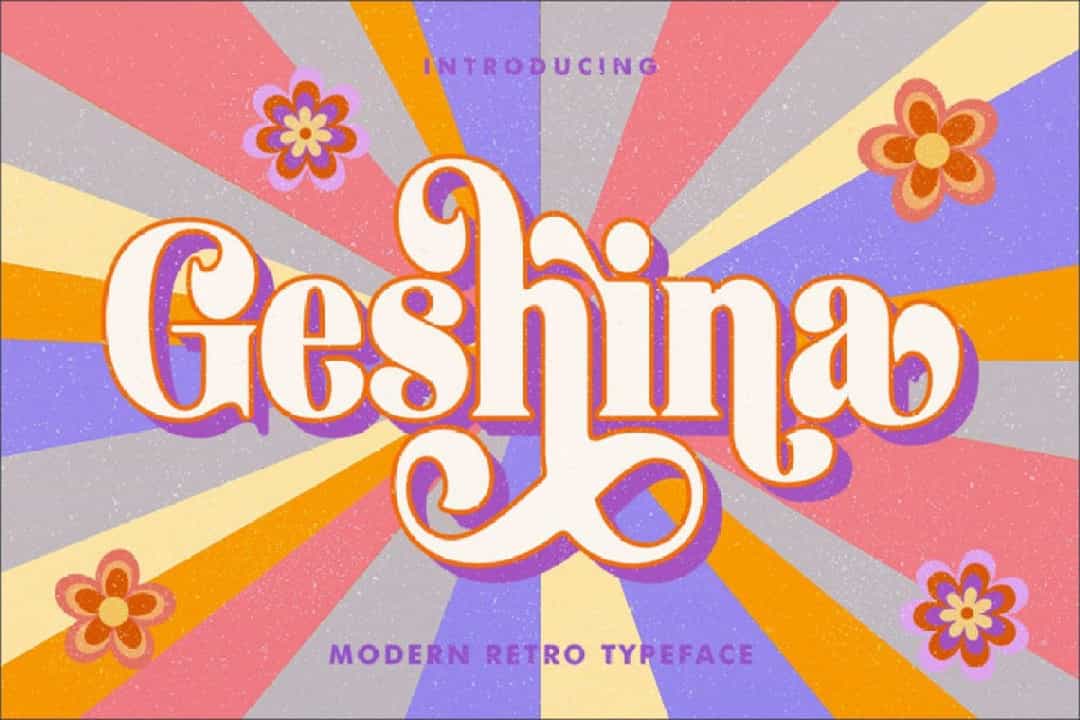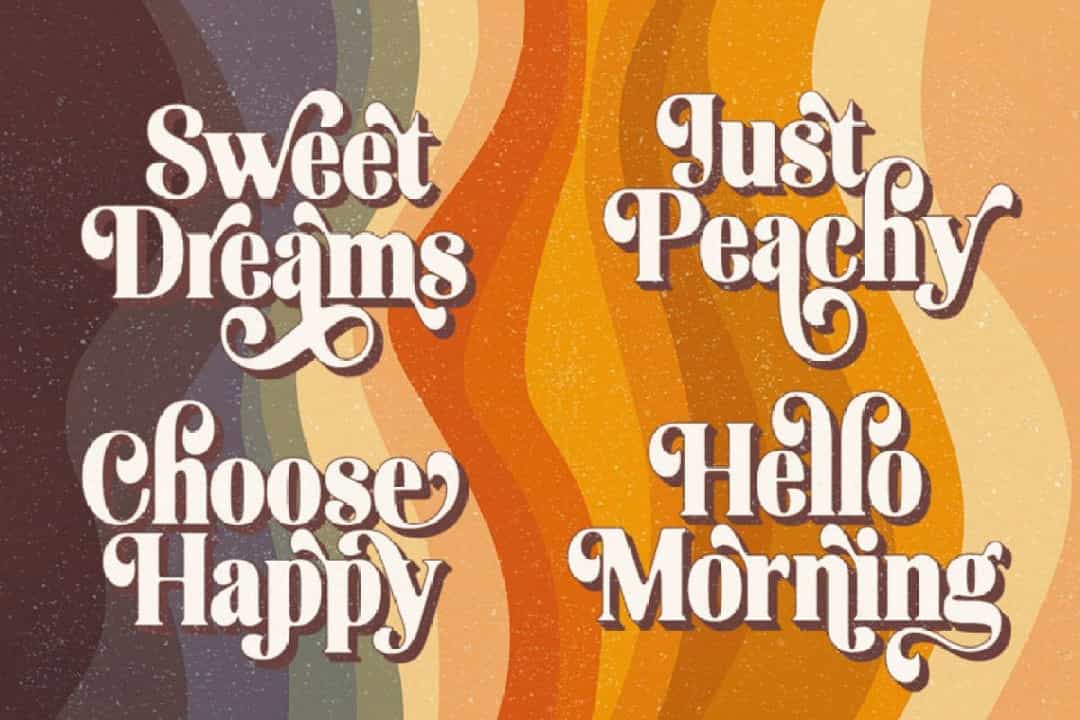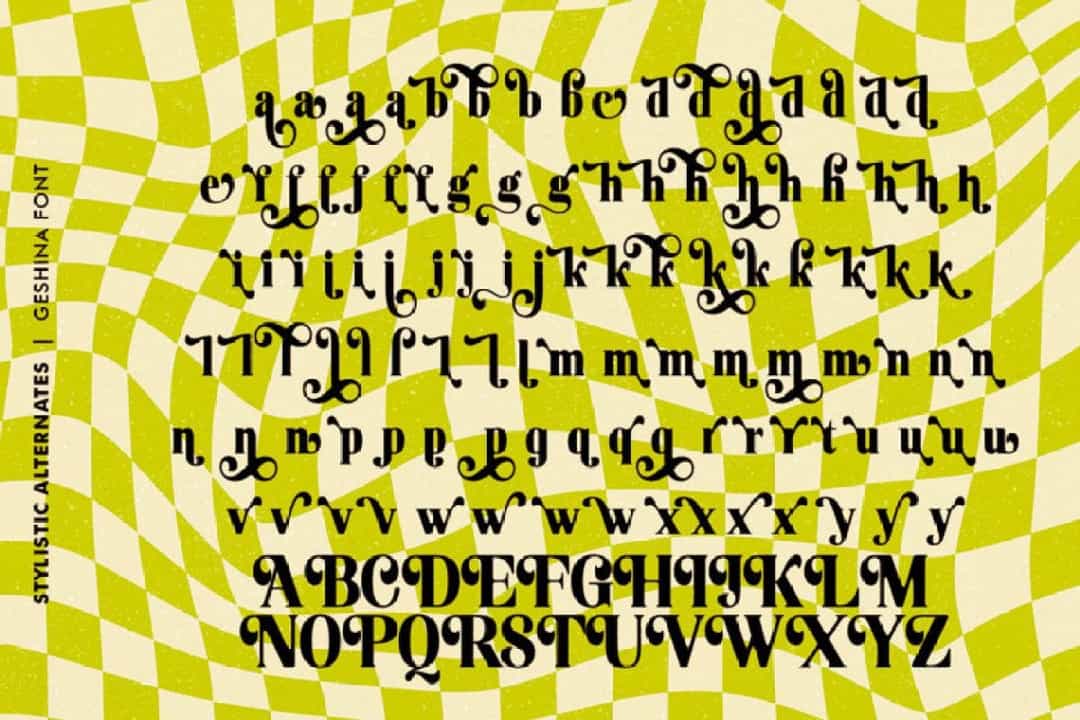
Geshina is an elegant old-school show font featuring many curvy letters. Perfect for wedding invitations, invitation cards and any style which requires elegant personalization!